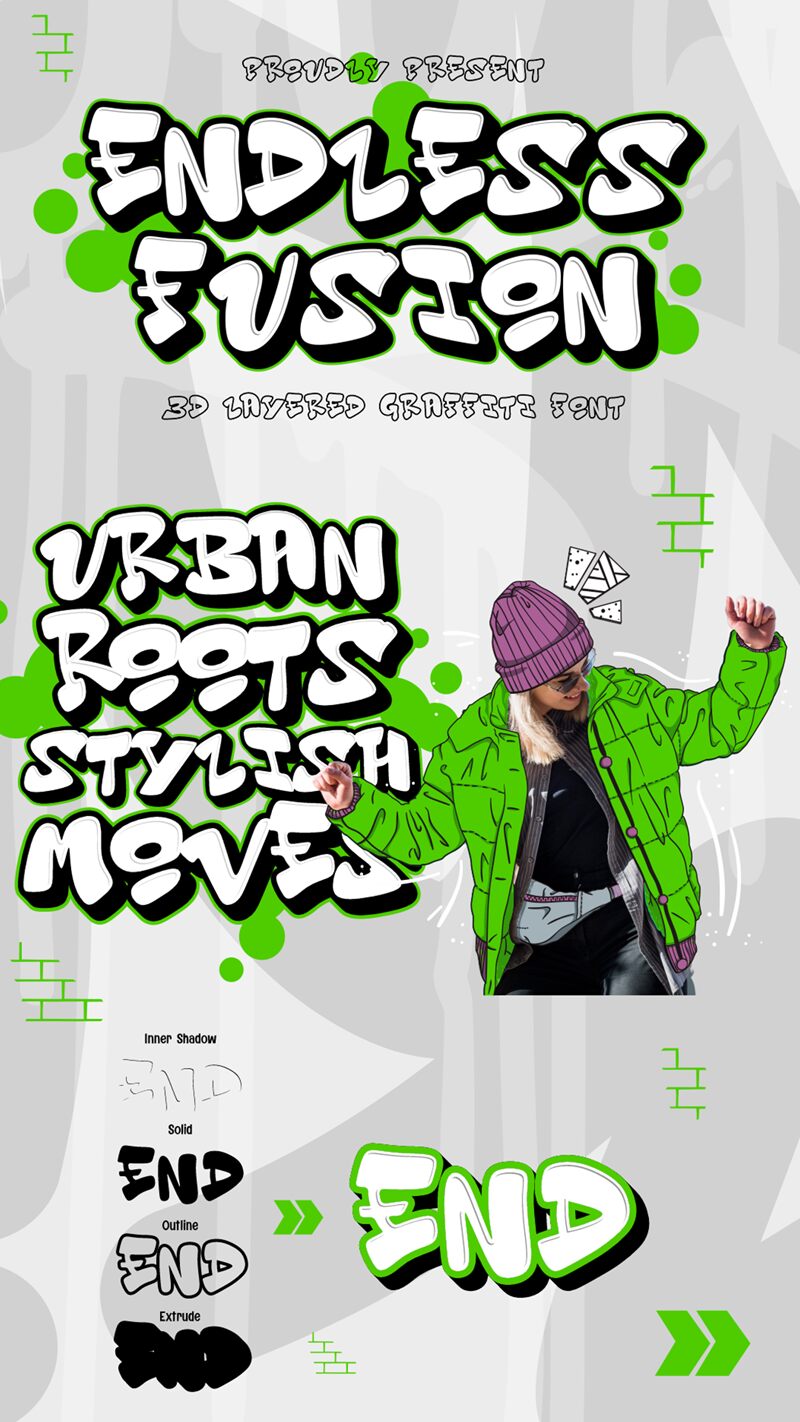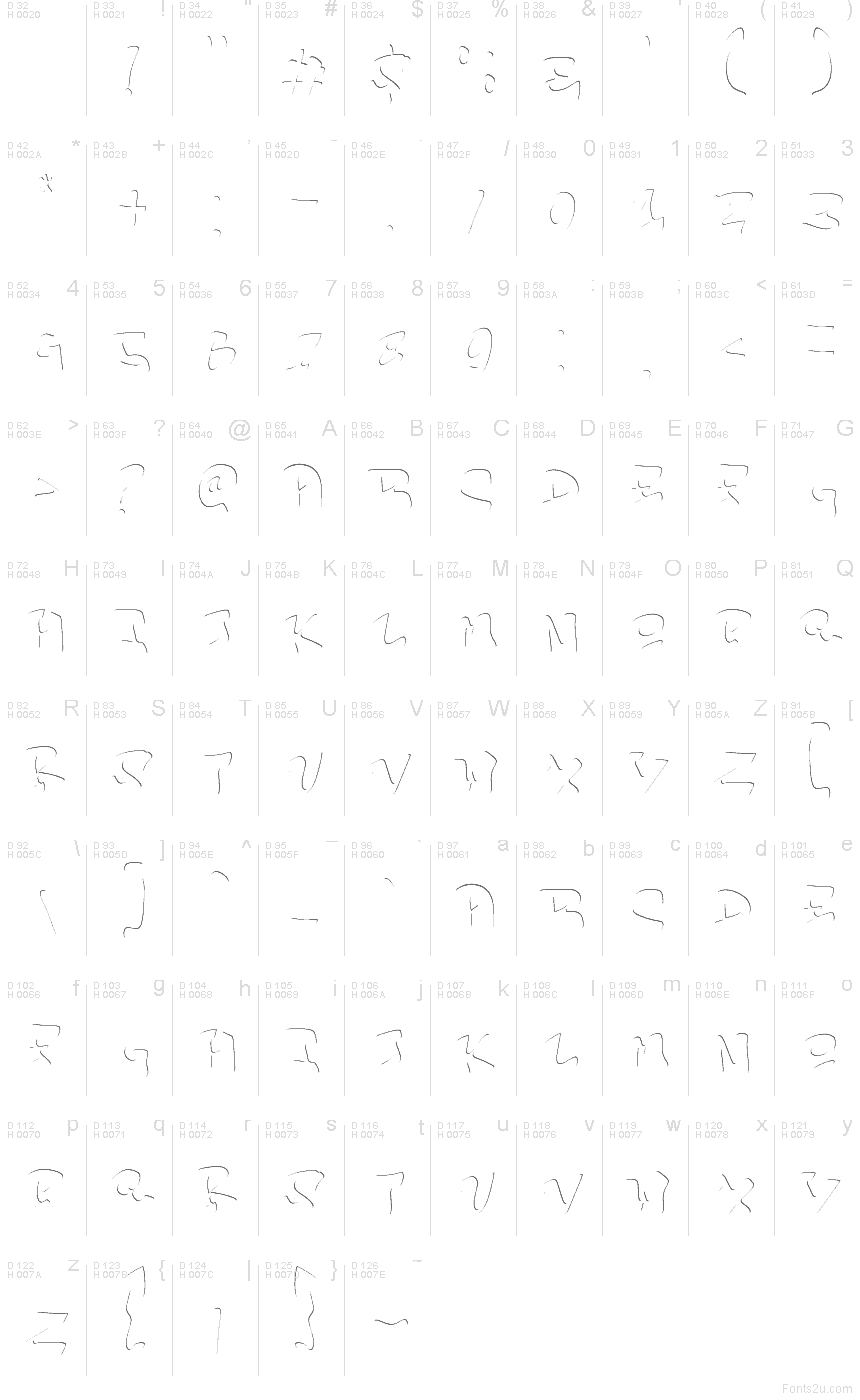
Endless Fusion Inner Inner
Endless Fusion Inner font by Muhammad Panji Ramdhani of Sipanji x Figuree is a free graffiti font; the typeface feels like a quick tag caught mid-stroke, with airy “inner” gaps and jittery, ink-scratch outlines. It reads loud even at a glance, but the broken edges keep it raw and street—more sketchbook marker than polished logo.
Using Endless Fusion Inner, you’ll get instant attitude on posters, streetwear graphics, album covers, skate stickers, event flyers, YouTube thumbnails, and bold social headers. This free font shines when you give it room—try a short wordmark at large sizes and pair it with a clean condensed sans for dates or details.